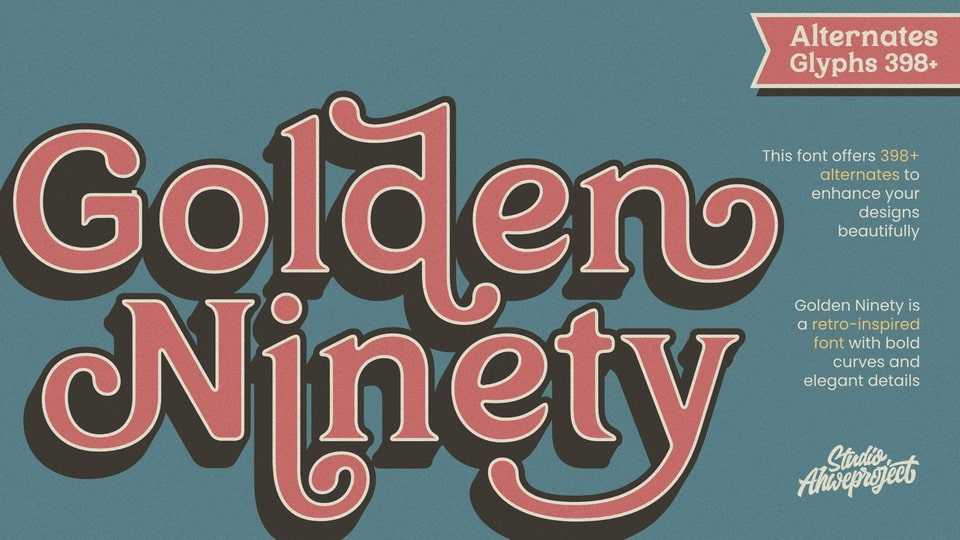
Download Golden Ninety font, a bold and elegant typeface with a vintage flair, showcasing playful curves and artistic details. The design combines retro aesthetics with modern typography.